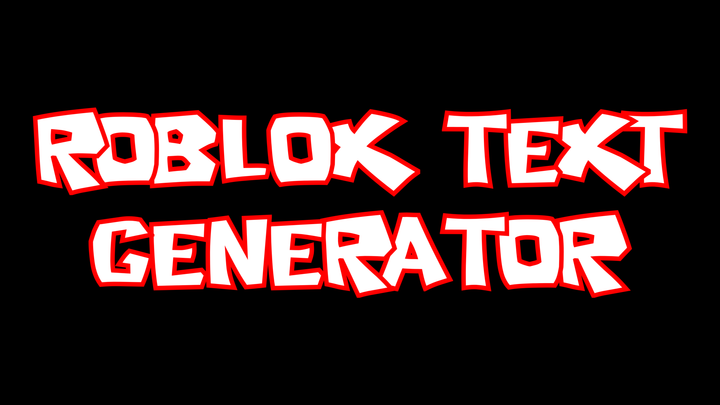
Create Roblox Fonts and Text Effects Online
The Roblox logo is one of the most recognizable visuals in gaming — bold, fun, and full of energy. With the right Roblox font and a few creative text effects, you can design your own name, logo, or title in the same playful style. Let’s explore the most popular Roblox-inspired